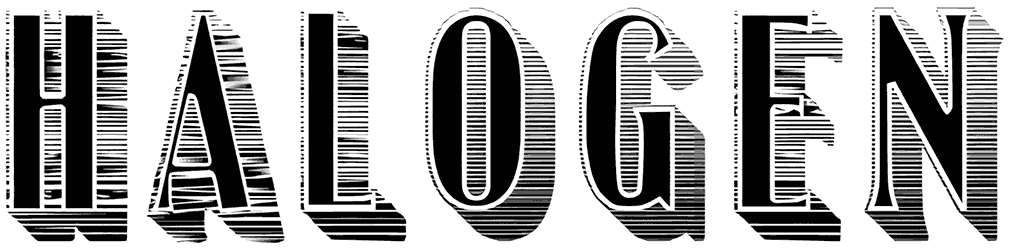
Halogen Font
If you think you require a look that is far from a regular form to complete your design, try Halogen. As a retro font, Halogen possesses simple letters that are on a distorted background and represent a 3D mood. No lowercase, numbers, or punctuation, but still can be perfect for many creative designs such as logotypes, posters, virtual reality, illustrations, and others.